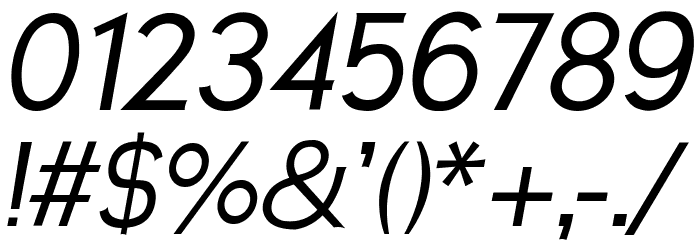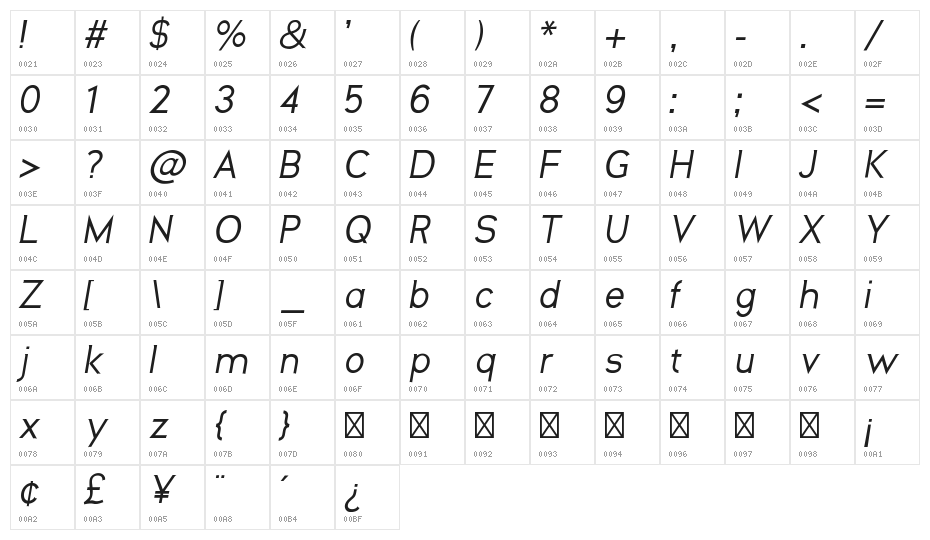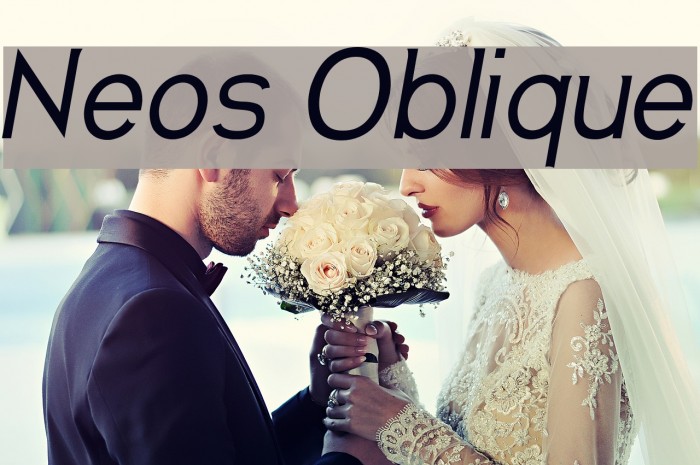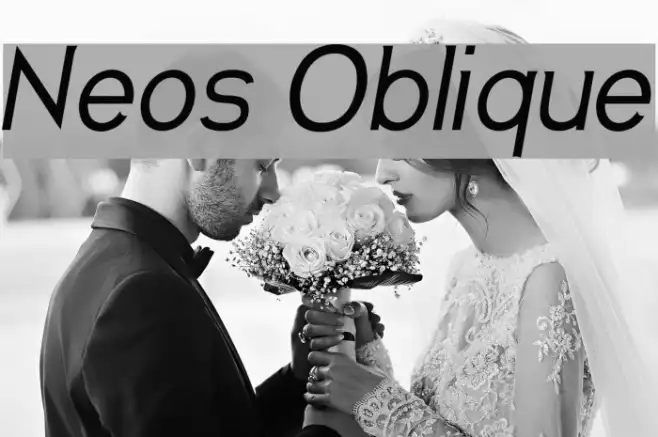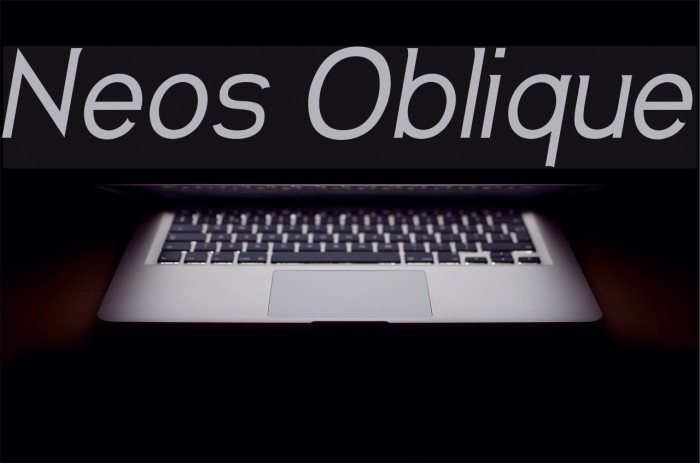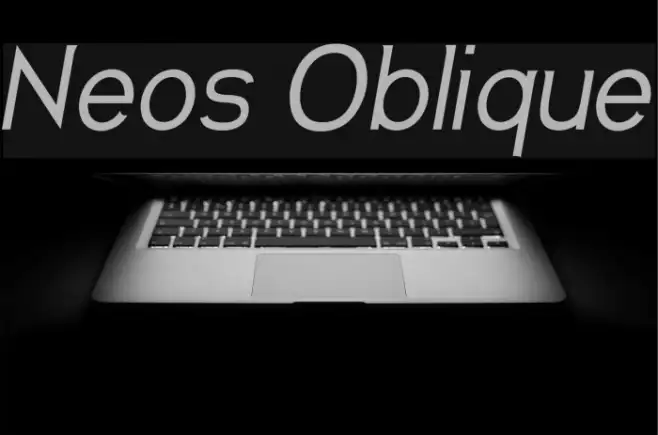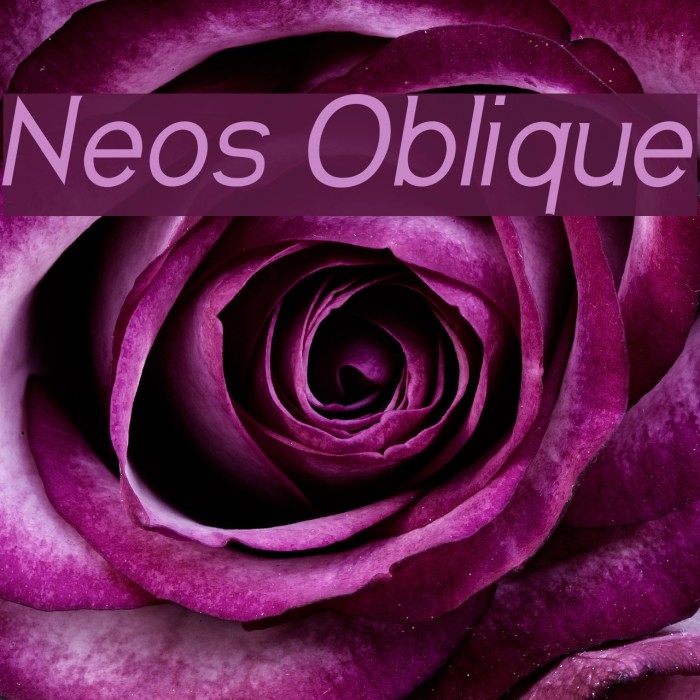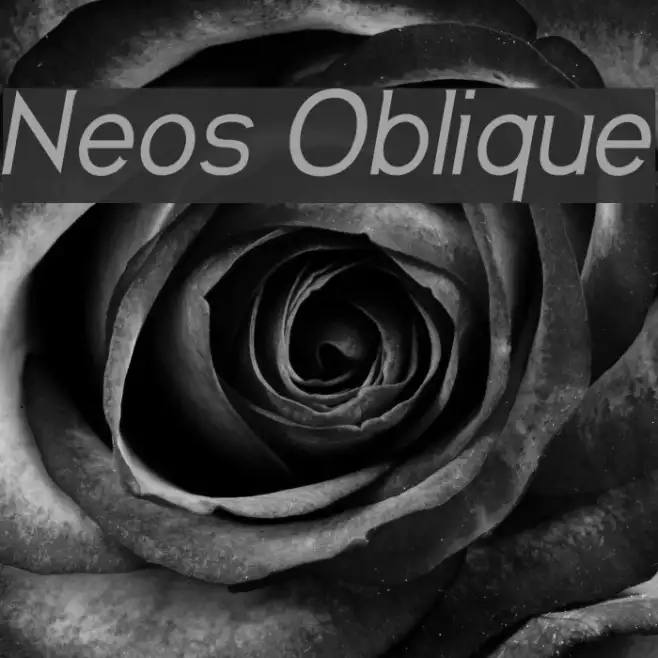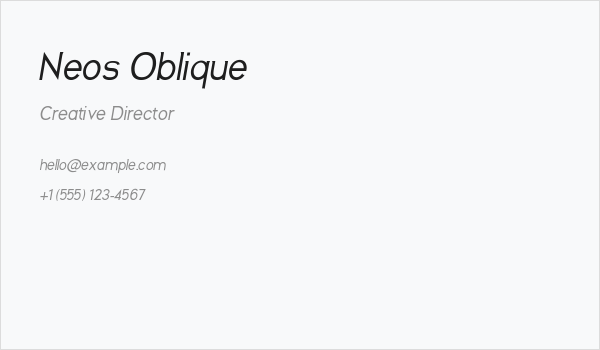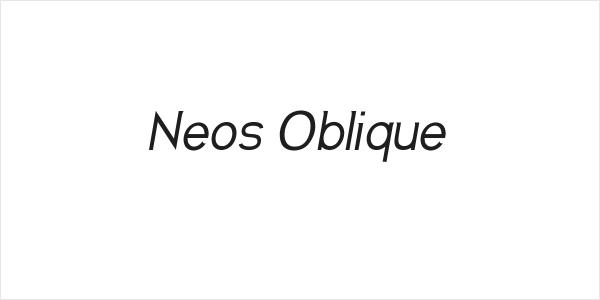
Neos Oblique Font
Neos Oblique Description
This font features a sleek and modern design with an oblique style, giving it a dynamic and forward-leaning appearance. The characters are clean and sans-serif, providing a contemporary look that is both professional and approachable. The uniform stroke width across the letters ensures a consistent and harmonious visual flow. The font maintains a balanced proportion, making it versatile for various design applications. Its italicized nature adds a sense of motion and elegance, suitable for projects that require a touch of sophistication.
| Proposed Projects | Ideal for branding, advertising, and editorial design where a modern and sophisticated look is desired. |